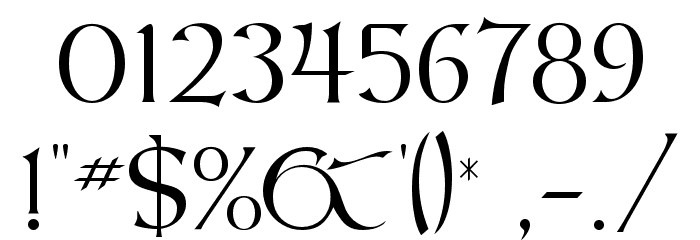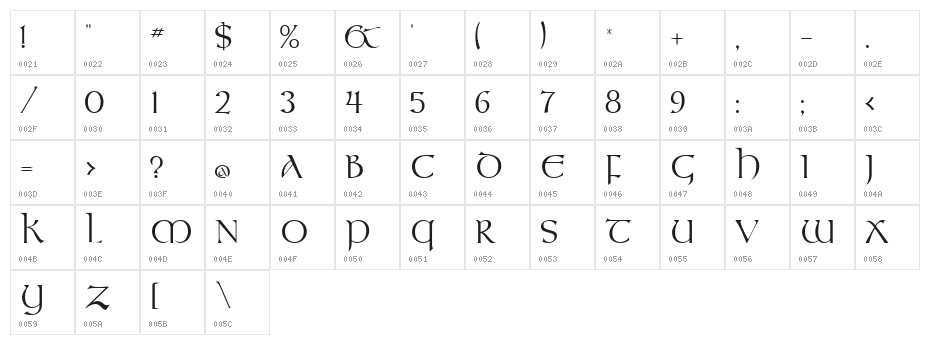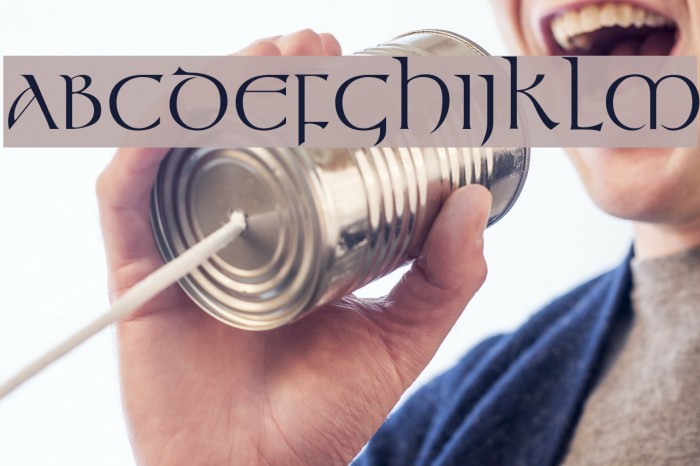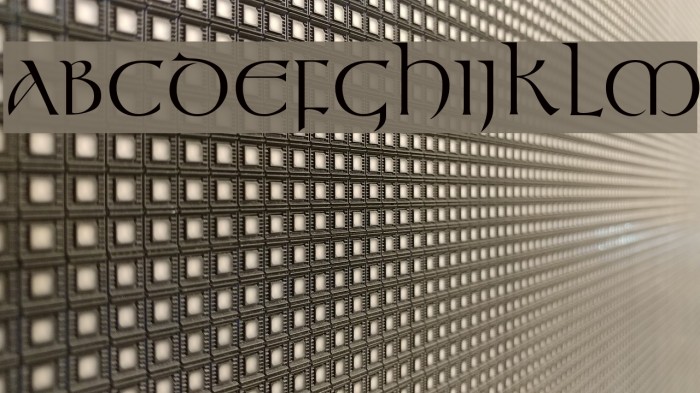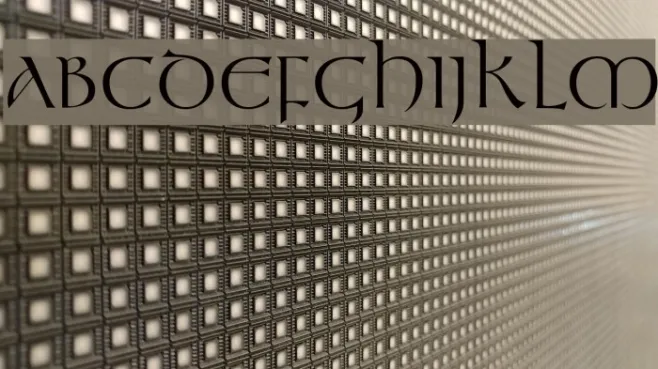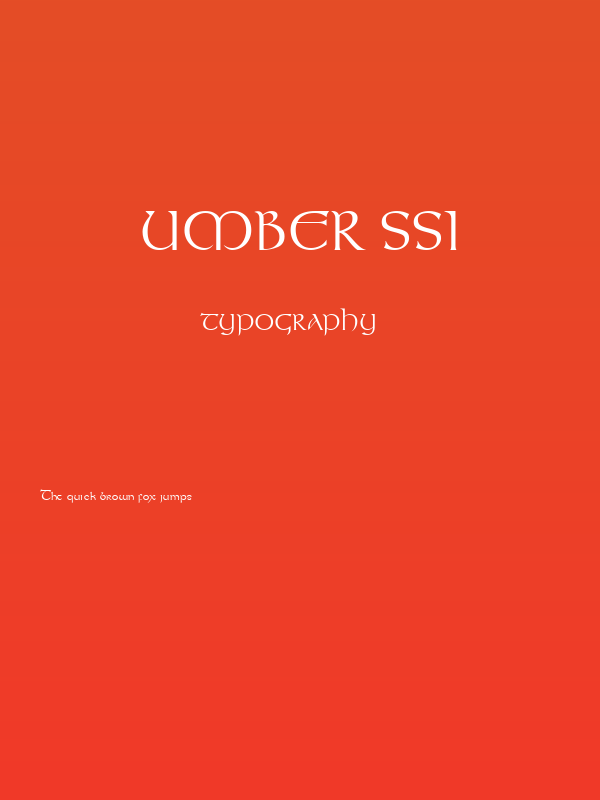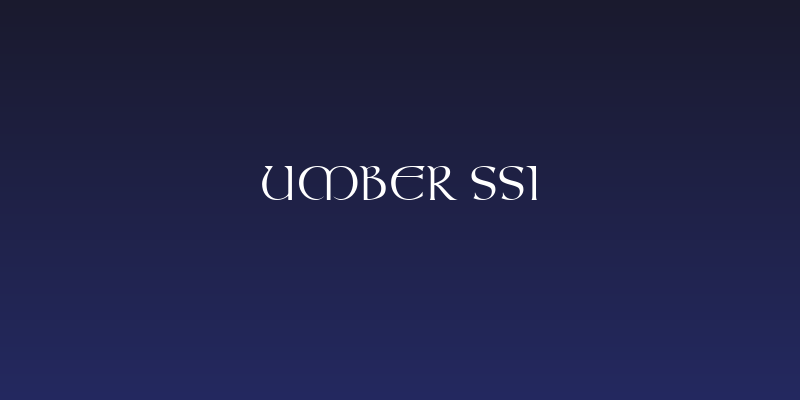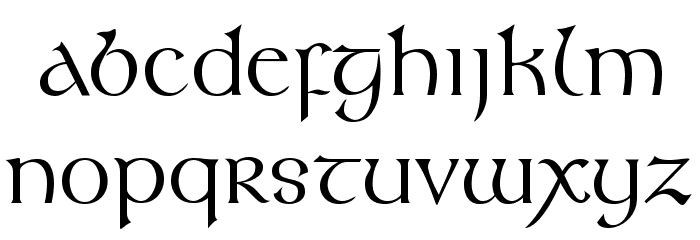
Umber SSi Font
Umber SSi Description
This font features a unique blend of modern and classic elements, characterized by its sharp, angular serifs and elegant curves. The uppercase letters have a distinct, almost calligraphic flair, while the lowercase letters maintain a more subdued, yet complementary style. The numerals are bold and easily readable, with a slight artistic twist that adds to the overall aesthetic. Special characters are designed with the same attention to detail, ensuring consistency throughout the typeface. This font stands out with its high contrast in stroke thickness, giving it a dynamic and sophisticated appearance.